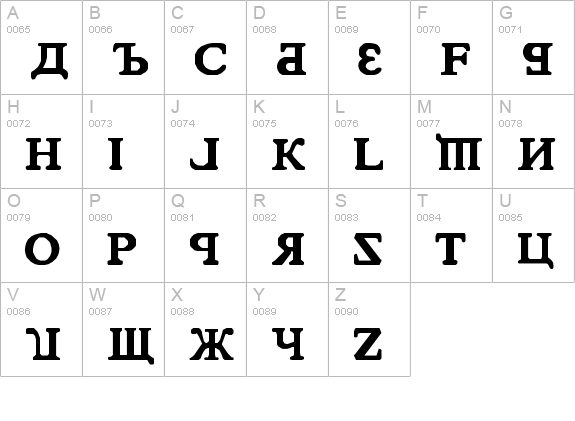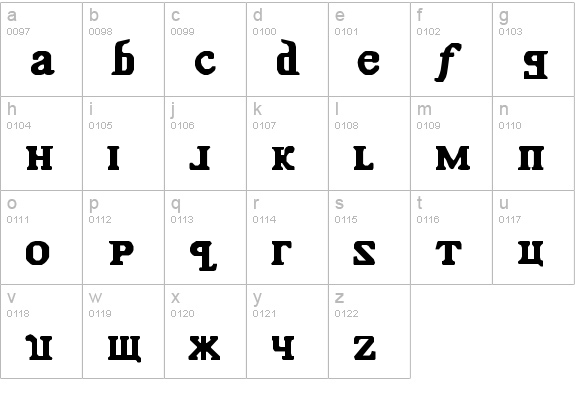
Introducing Kremlin Comrade, a bold and commanding font that exudes strength, power, and a touch of Soviet nostalgia. Inspired by the iconic architecture and symbolism of the Kremlin, this font captures the essence of Russian history and culture. With its clean lines and sharp angles, Kremlin Comrade commands attention and demands to be noticed. Its thick strokes and slightly condensed letterforms make it perfect for headlines, logos, and any design that needs to make a bold statement. But what sets Kremlin Comrade apart is not just its striking appearance; it is also its availability. We believe that great design should be accessible to everyone, which is why we are proud to offer Kremlin Comrade as a free font. Yes, you read that right – free! You can download it right now, no strings attached, at FontsMarket.com. Whether you're a graphic designer, a typographer, or simply someone who appreciates a good font, Kremlin Comrade is a must-have in your collection. Its versatility and timeless appeal make it suitable for a wide range of projects, from posters and advertisements to websites and social media graphics. So why wait? Go ahead and download Kremlin Comrade today and unleash its power and elegance in your next design. Remember, it's freely available at FontsMarket.com, because great design should never be limited by cost. Enjoy the boldness of Kremlin Comrade and let it elevate your creative endeavors to new heights.